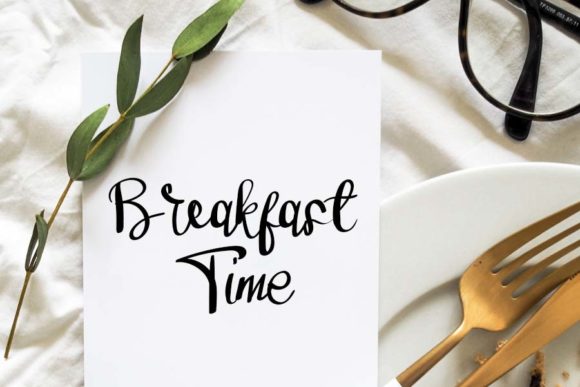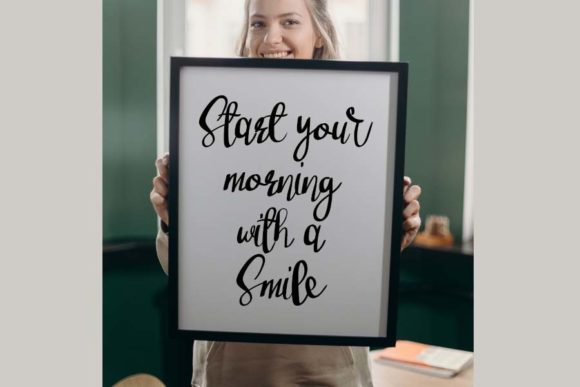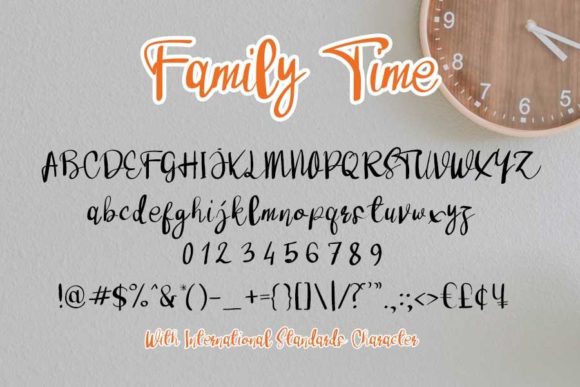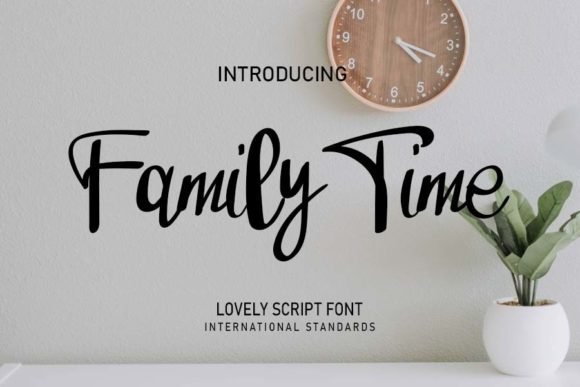
Introduction to Family Time Font
Family Time is a chic, refined script font that emanates sophistication and elegance.
Its stylish alternates and ligatures make this font the perfect match for any project .
Key Features of Family Time Font
Why Choose Family Time Font?
Family Time Font offers exceptional quality and versatility, making it a valuable addition to your design toolkit. Whether you’re creating for personal projects or commercial use, Family Time Font delivers professional results.